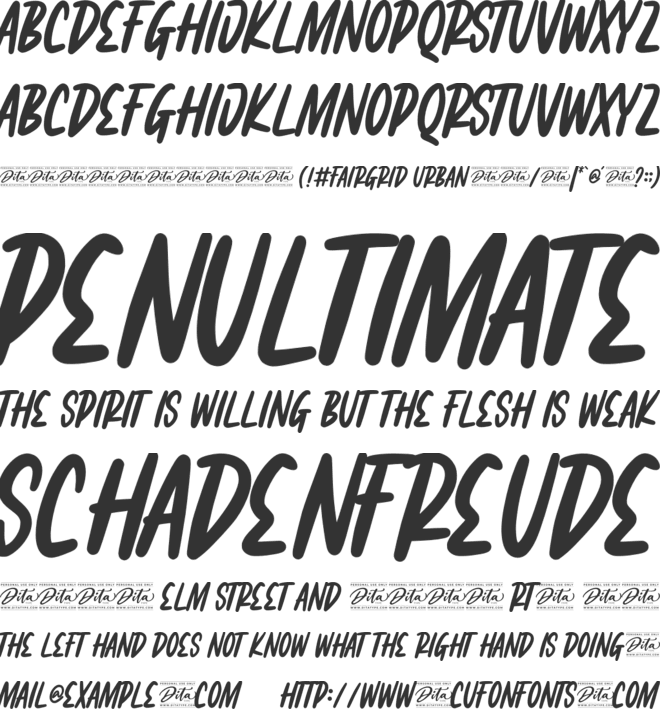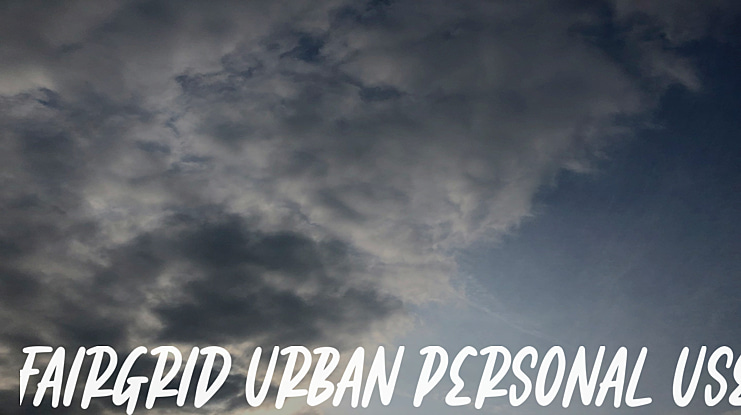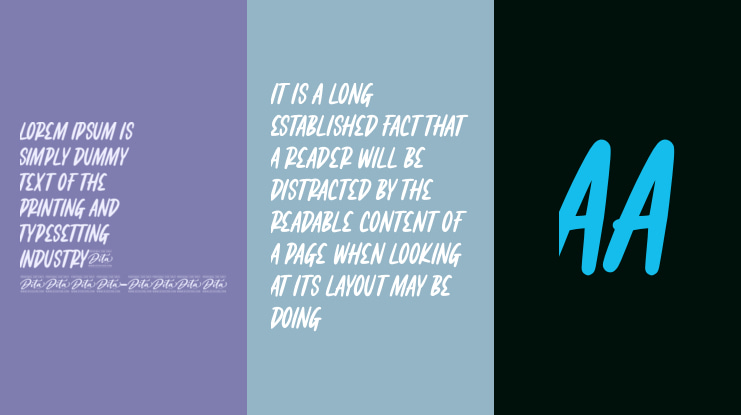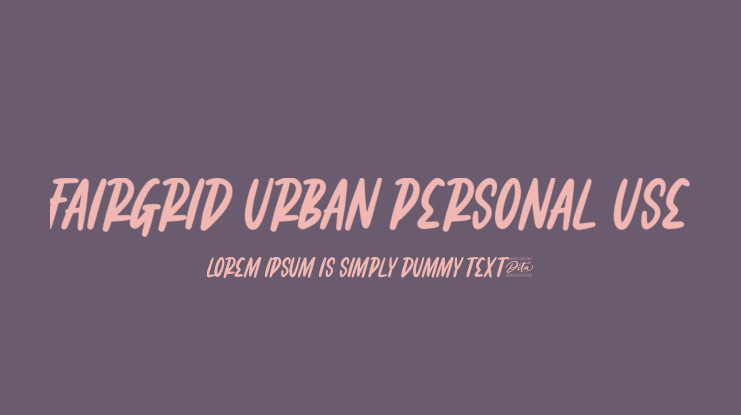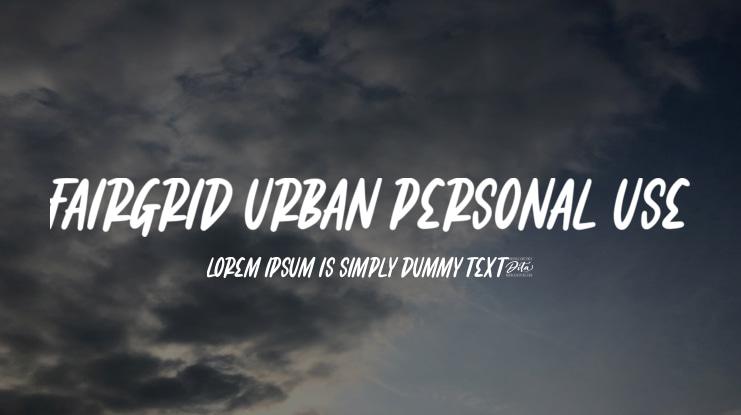
Fairgrid Urban is a modern handwritten font. With a classy and natural handwritten style, it brings a classy and chic typeface. Fairgrid Urban is best used for weddings, branding, logotype, and quotes. -Link to purchase commercial license with an option: https://ditatype.com/product/fairgrid-urban/